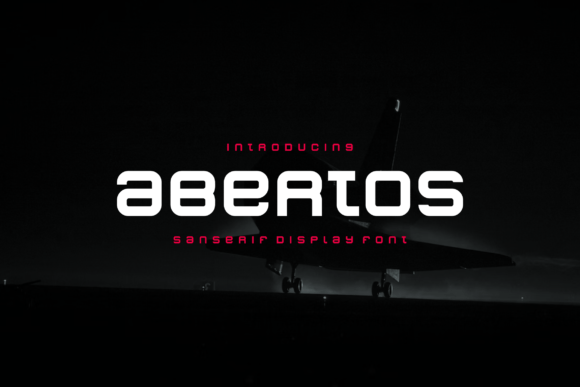
The Perfect Font for a Fresh Start
Remember that moment when you’re staring at a blank page, trying to come up with the perfect design concept? The cursor blinks, and your mind is a blank slate. That’s when the right font can make all the difference. It’s the foundation upon which your entire design is built, and it can either make or break the look and feel of your project.
Enter Abertos Font, a clean and modern sans serif font that’s designed to make your life easier. With its smooth, straight lines and effortless readability, Abertos Font is the perfect choice for simple designs like posters, websites, and logos. Its fresh and professional look will give your designs the boost they need to stand out from the crowd.
Abertos Font Key Features
- Font Size and Style: The font comes in multiple sizes and styles, including regular, bold, italic, and bold italic, allowing for flexibility in design and layout.
- Language Support: The font supports a wide range of languages, including Latin, Cyrillic, Greek, and many others, making it a versatile choice for global branding and design projects.
- Unique Characteristics: Abertos Font features a distinctive, modern design with clean lines and a minimalist aesthetic, setting it apart from more traditional font styles.
- Font Weight and Opentype Features: Abertos Font includes advanced OpenType features, such as ligatures, swashes, and contextual alternates, which can be used to add a touch of sophistication and elegance to designs.
Abertos Font Review
Overall, I found the Abertos Font to be a unique and eye-catching choice for digital design. ✨ The font’s dynamic, fluid lines and varied letterforms create a sense of movement and energy that’s hard to ignore.
- One of the standout features of Abertos is its versatility. ✨ It works well in both bold and delicate applications, making it a great choice for a wide range of projects.
- The font’s irregularities and asymmetries add a touch of personality to text, making it perfect for creative, expressive designs.
- Abertos also has a great balance of form and function, making it easy to read and understand, even at small font sizes.
However, there are some limitations to consider. ⚠️ The font’s unique style may not be to everyone’s taste, and some users may find it difficult to read or too distracting.
- The font’s irregularities can also make it challenging to pair with other fonts, as it may clash with more traditional or straightforward typography.
- Additionally, the font’s dynamic feel may not be suitable for all types of content, such as formal documents or academic texts.
In conclusion, Abertos Font is a bold and expressive choice that’s perfect for designers looking to add some personality to their projects. While it may not be for everyone, it’s definitely worth considering for creative and attention-grabbing designs.
Tips for Getting the Most Out of Abertos Font
Abertos Font is a versatile font that can be used for a variety of purposes, including:
- Body text
- Design elements
Abertos Font is commonly used in:
- Website
Alternatives to Abertos Font for Designers
Open Sans is a popular, clean, and modern sans-serif font. It is suitable for body text and works well for digital products, websites, and mobile apps.
Compared to Abertos Font, Open Sans is more versatile and widely used, making it easier to find compatible fonts. However, it lacks the unique feel and cultural connection of Abertos Font.
Montserrat is a geometric sans-serif font inspired by urban typography. It is ideal for headlines, titles, and short paragraphs in digital and print media.
Montserrat shares some similarities with Abertos Font in its geometric feel, but it has a more urban and industrial vibe. While Abertos Font has a unique cultural connection, Montserrat is more versatile and widely used.